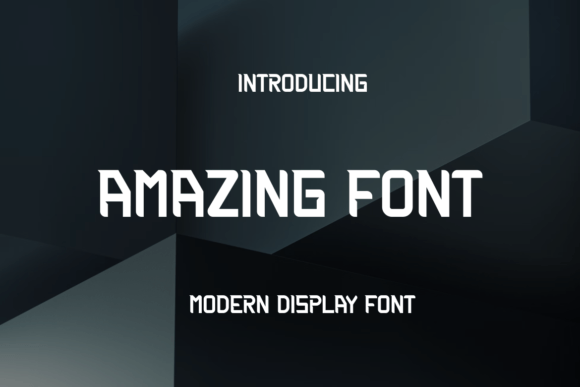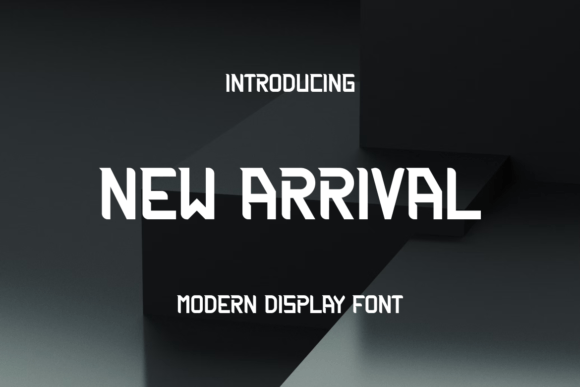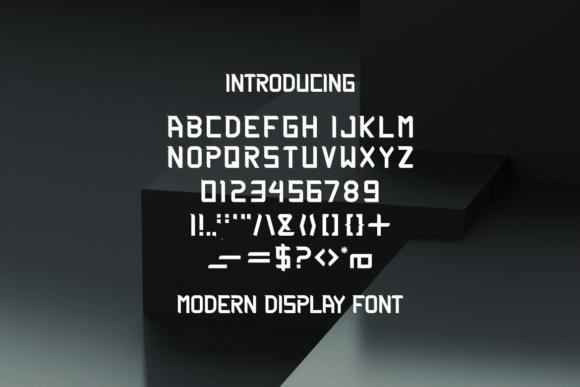
Introduction to Saquahd Font
Presenting our new product **Saquahd Font** – Modern Font **SaquahdFont** – Modern Font is a bold and authentic display font.
This font is perfect for any branding project such as logos, t-shirt printing, creative products, and more extraordinary in a variety of contexts.
Why Choose Saquahd Font?
Saquahd Font offers exceptional quality and versatility, making it a valuable addition to your design toolkit. Whether you’re creating for personal projects or commercial use, Saquahd Font delivers professional results.